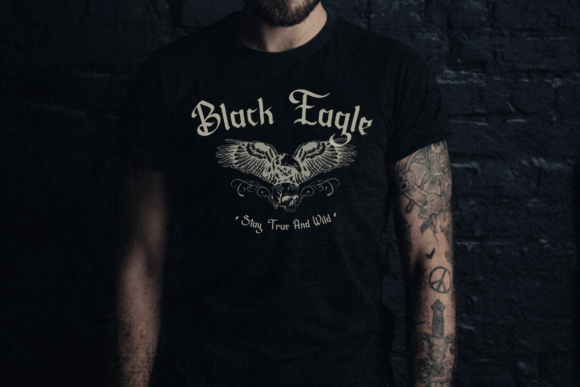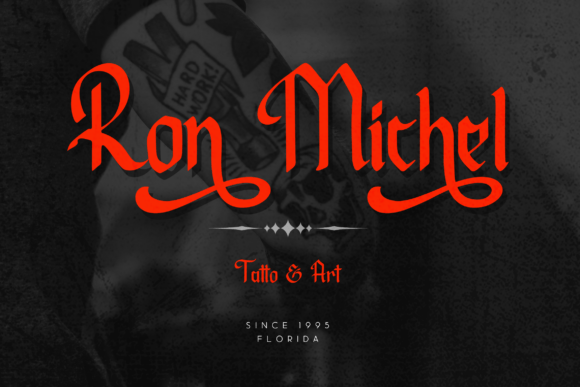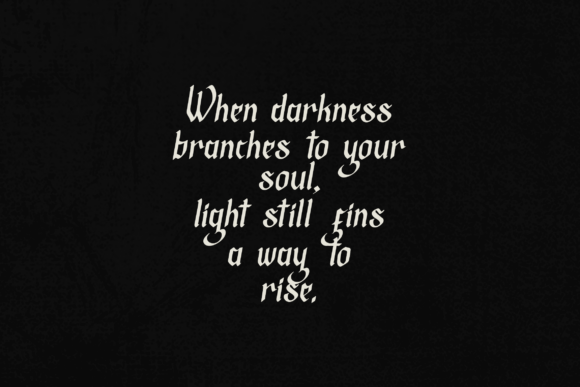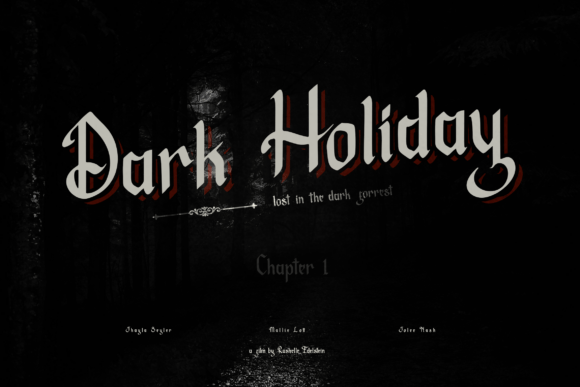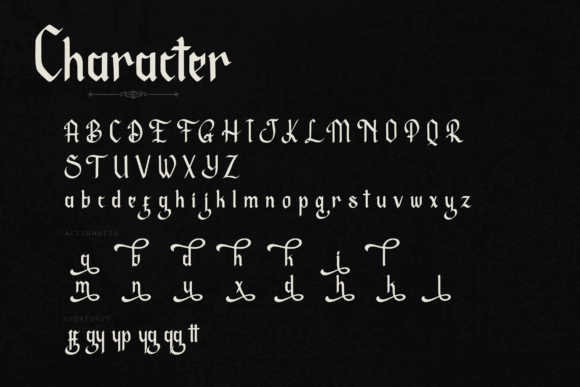
Unlocking the Power of Empirelines Font: A Designer’s Dream Come True
I still remember the frustration of working on a project, pouring my heart and soul into every detail, only to be held back by a lackluster font. The struggle to find the perfect typeface that would elevate my design and convey the desired message was real. But then, I stumbled upon Empirelines, a majestic blackletter typeface that has become my go-to for bold, eye-catching designs.
A Personal Review: What I Love About Empirelines
So, what makes Empirelines so special? Here are a few things that I absolutely love about this font:
- ✨ Historical elegance with a bold twist: Empirelines seamlessly fuses medieval gravitas with gothic flair, making it perfect for designs that require a touch of sophistication and drama.
- ✅ Complete character set: The font features a comprehensive set of uppercase and lowercase letters, punctuation, symbols, and multilingual support, making it incredibly versatile.
- 🔥 High contrast and sharp serifs: The font’s high contrast and sharp serifs add a level of sophistication and elegance to any design.
While Empirelines is an exceptional font, there are a few minor quirks to be aware of:
- 🤔 Occasional kerning issues: As with any font, some users may experience kerning issues, especially when using certain character combinations.
- ⚠️ Not suitable for body text: Due to its bold and ornate nature, Empirelines is best used for headlines, titles, and short paragraphs, rather than body text.
The Story Behind Empirelines
Empirelines was designed with the goal of creating a typeface that would evoke the grandeur and elegance of medieval times, while still being versatile and functional. The design process involved extensive research into historical typefaces, as well as a deep understanding of modern design trends. The result is a font that’s both timeless and modern, perfect for designers looking to add a touch of sophistication to their work.
- Q: Is Empirelines suitable for body text?
- A: No, Empirelines is best used for headlines, titles, and short paragraphs, rather than body text.